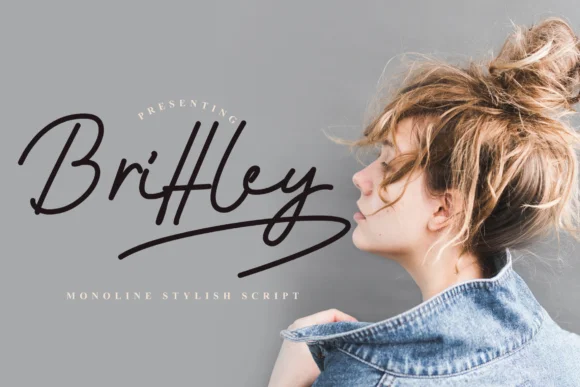
Brittley Font
Brittley Font is perfect for British-inspired branding, traditional tea shop signage, English countryside tourism, classic pub logos, heritage fashion labels, Victorian-themed events, London boutique branding, royal celebration materials, traditional craft packaging, and authentic British cultural projects.
Brittley Font is exciting because it authentically captures the refined charm and timeless elegance of British heritage through sophisticated letterforms that evoke English countryside grace, royal sophistication, and traditional British craftsmanship with distinguished appeal. This classically designed typeface combines British typography traditions with contemporary functionality, making it perfect for brands that want to communicate heritage quality, cultural authenticity, and sophisticated British character.
The Brittley Font family includes elegant weights with British-inspired character styling, featuring traditional decorative elements and heritage flourishes. The font showcases English design details, countryside-refined proportions, and authentic British characteristics that create a comprehensive typographic system for heritage and culturally-sophisticated brand applications.
The British sophistication of Brittley Font makes it an invaluable tool for heritage organizations, traditional service providers, and cultural institutions that need typography capable of communicating English elegance and British authenticity. The font's refined character helps establish connections with audiences appreciating British culture, traditional craftsmanship, and sophisticated heritage experiences that embody timeless English values.
Traditional tea shops, heritage hotels, and British cultural organizations consistently choose Brittley Font for its ability to convey British sophistication and heritage authenticity through typography. The font excels in applications where establishing cultural credibility and traditional appeal are essential to brand positioning, making it particularly effective for heritage tourism, traditional services, and British brands targeting culturally sophisticated consumers.
This font's comprehensive character set includes British-inspired letterforms, heritage numerals, traditional punctuation marks, and cultural symbols that support authentic English typography composition. The consistent refined styling maintains the British heritage theme throughout all characters while ensuring professional readability across all heritage and cultural design projects requiring Brittley Font Free Download functionality.